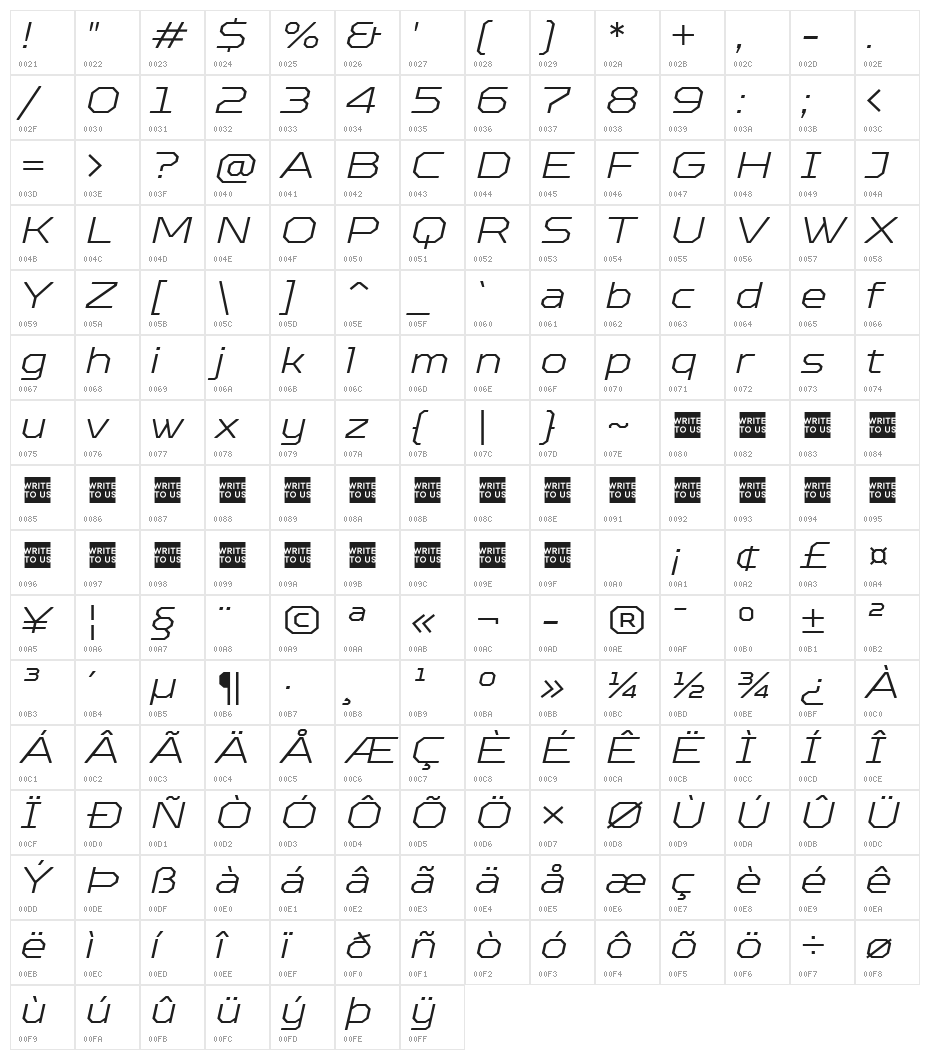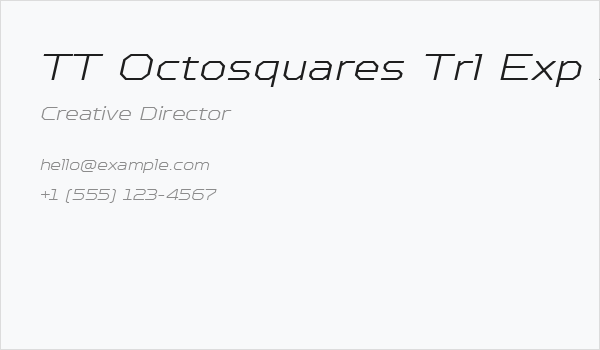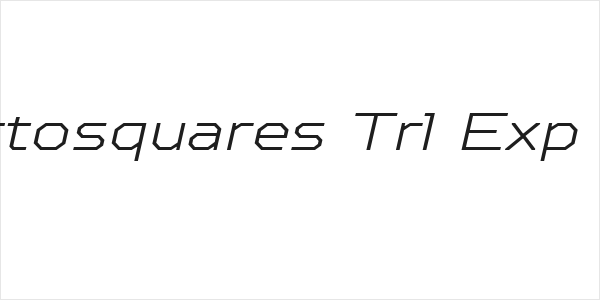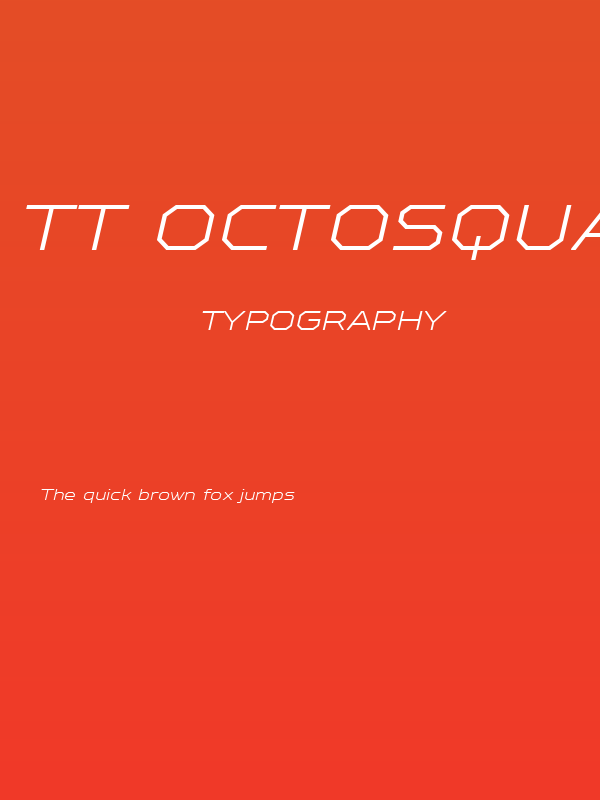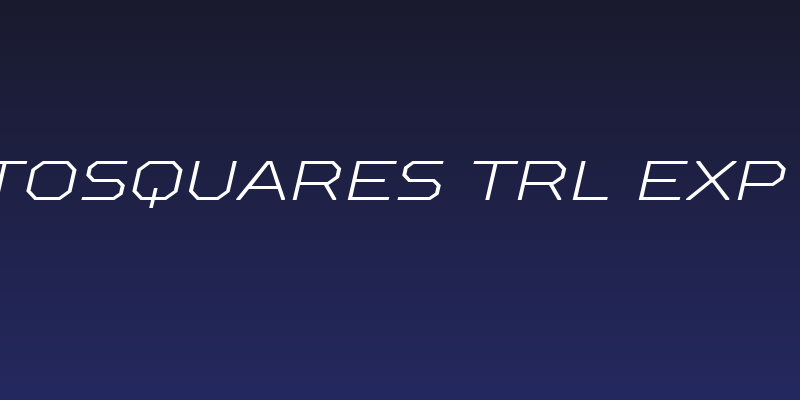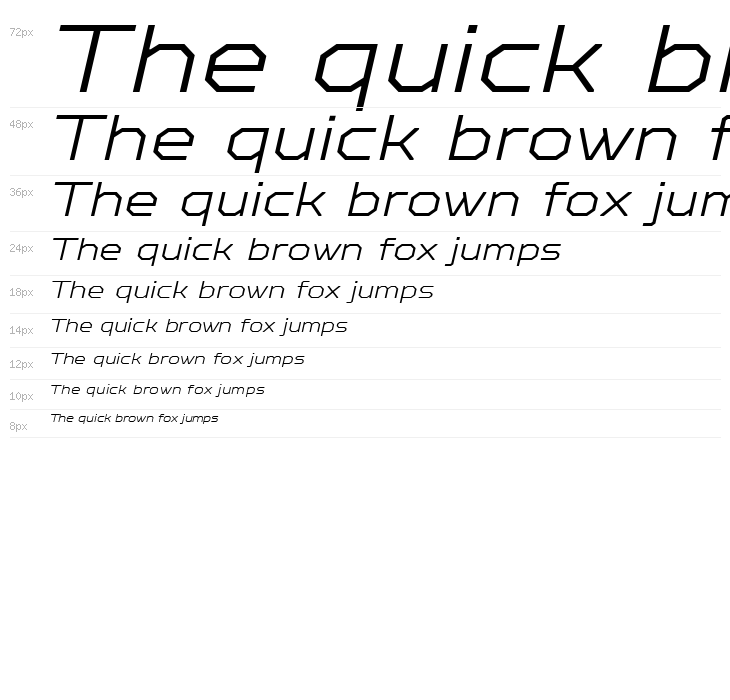
TT Octosquares Trl Exp XLt It Font
TT Octosquares Trl Exp XLt It Description
This font features a geometric and angular design, characterized by its octagonal shapes and clean lines. The characters are slightly slanted, giving it an italicized appearance. The uppercase and lowercase letters maintain a consistent style, with sharp edges and a futuristic feel. The numerals and special characters follow the same design principles, ensuring uniformity across all glyphs. The font's expanded width and unique style make it stand out, suitable for modern and tech-oriented projects.
| Proposed Projects | Ideal for technology branding, modern posters, and innovative product packaging. |